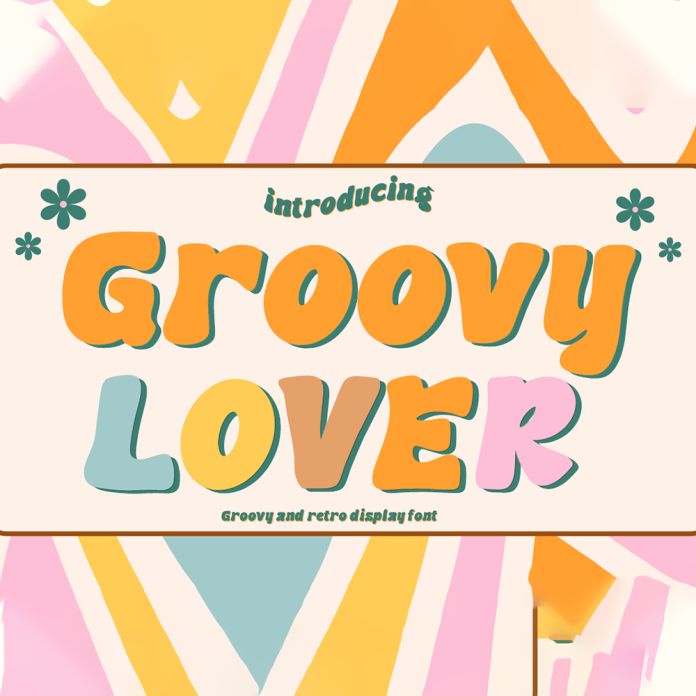
Groovy Lover Font is a fun and whimsical brush font with a decorative style. It features playful curves and swashes, giving it a retro and funky vibe. This font is perfect for adding a touch of personality and flair to any design project, whether it be invitations, posters, or branding materials.